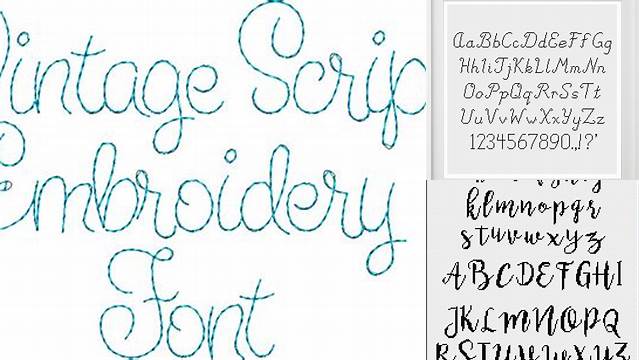
Free Cursive Cross Stitch Fonts: Your Guide
Are you a cross-stitch enthusiast looking to add a touch of elegance and personality to your projects? Do you want to learn about the best cursive cross stitch font free options available? You're in the right place, my friends! This comprehensive guide dives deep into the world of cursive cross-stitch fonts, focusing on free resources, design tips, and how to choose the perfect font for your next masterpiece. We'll explore various aspects, from understanding the nuances of cursive fonts to finding the best free options and providing tips on how to make the most of them. So, whether you're a seasoned stitcher or just starting, get ready to enhance your cross-stitch game with beautiful cursive fonts! Get ready, guys, because we're about to make some stitches and have some fun!
Understanding Cursive Cross Stitch Fonts
Let's start with the basics, shall we? Cursive cross stitch fonts are designed to mimic the flowing, connected style of cursive handwriting. Unlike block letters, cursive fonts offer a more sophisticated and graceful look, making them perfect for monograms, quotes, names, and other personalized details in your cross-stitch projects. But it's not just about aesthetics; choosing the right font also involves understanding the practical aspects of cross-stitching. For instance, the font's complexity can affect the ease of stitching and the final look. Factors like the thickness of the lines, the spacing between letters, and the presence of loops and flourishes can all influence the stitching process.
So, when thinking about the best cursive cross stitch font free, it's helpful to know some characteristics that make a font great for cross-stitch. A good cross-stitch font should have clear, well-defined lines that are easy to follow. It should be stitch-friendly, meaning the letters are simple and don't involve many fractional stitches or complex curves that might complicate the process. The size of the font is also important; if it's too small, it might be difficult to see and stitch, while a font that's too big can overwhelm the design. Besides these practical considerations, you should also consider the overall style of the font. Do you want something elegant and formal, or playful and whimsical? The answer to these questions will help you narrow down your choices and find a font that truly reflects your personal style.
Moreover, the best cursive cross stitch font free options often include different variations. You can find a font with several weights (like light, regular, bold), so you have more options for your design. The number of available characters is another factor to consider. Some free fonts come with a full set of letters, numbers, and punctuation marks, allowing you to create complete phrases and sentences, while others may have more limited character sets. Keep this in mind when planning your project. Having access to various glyphs and special characters can be a big advantage, especially if you plan to create complex text designs. Always make sure to review the font's license to determine its usage restrictions. While many free fonts are available for personal use, there might be limitations for commercial projects. By taking all these factors into account, you can ensure that you select a cursive font that is both visually appealing and practical for your cross-stitch projects. So, take a deep breath, and let's jump right into the fun part!
Finding Free Cursive Cross Stitch Fonts: Where to Look
Okay, now that we have covered the basics, the next question is: where do we find the best cursive cross stitch font free? The internet is a treasure trove of free resources, but knowing where to look can save you a ton of time. Several websites specialize in providing free fonts, and they're perfect for your cross-stitch needs. Let's explore some of the best places to find these fonts.
Top Free Cursive Cross Stitch Font Recommendations
With all the options available, choosing the best cursive cross stitch font free can feel like a huge task. To make things easier, here are some of my top recommendations, focusing on usability, aesthetics, and the ease of stitching:
- Elegant and Simple: Consider fonts like